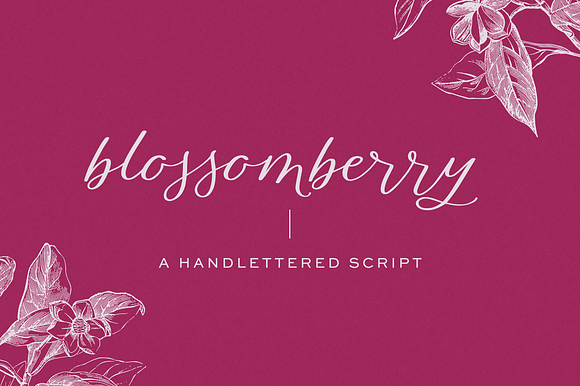
Blossomberry Script Font
Blossomberry Script Font by BeckMcCormick is a font selected for branding, posters, packaging, typography.
Why Blossomberry Script Font is worth a look
Blossomberry Script Font by BeckMcCormick fits naturally into Branding, posters, packaging, typography.